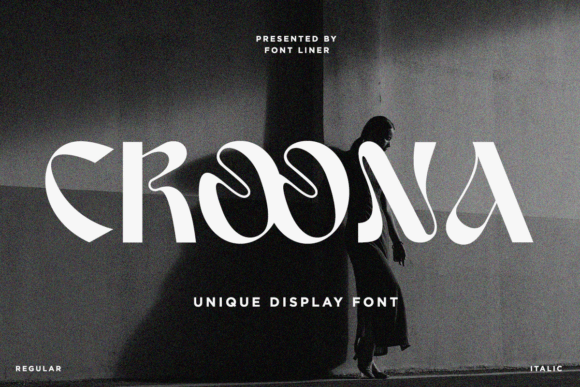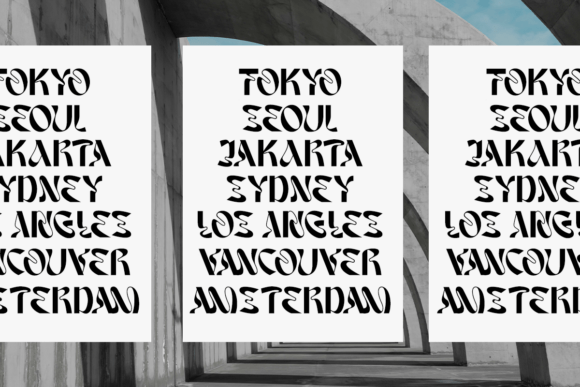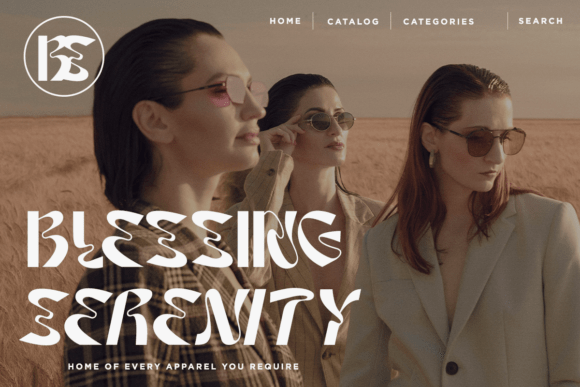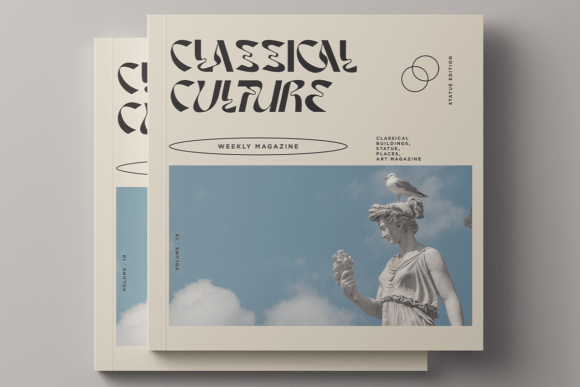
Croona Font
About the Croona Font
Make a bold statement with Croona Font, a powerful and memorable font. Croona is a cute and quirky serif font. It will add an incredibly joyful touch to your designs. Add this beautiful display font to each of your creative ideas and notice how it makes them stand out!
Croona’s playful character makes it ideal for headlines, short text blocks on posters, and branding elements where a touch of whimsy is desired. It works particularly well for children’s products, playful brands, and projects emphasizing fun and creativity. However, its quirky serifs and relatively large x-height make it less suitable for body copy or UI elements requiring high readability.
For optimal visual balance, pair Croona with a clean sans-serif like Open Sans for body text or a geometric sans-serif such as Futura for a more modern feel. A script font with a similar level of playfulness could also work well for secondary text elements, though it should be used sparingly to avoid visual clutter.
Croona’s overall personality is best described as cheerful and quirky, but with an underlying sense of approachability. This makes it a versatile option for brands targeting a youthful or light-hearted demographic.